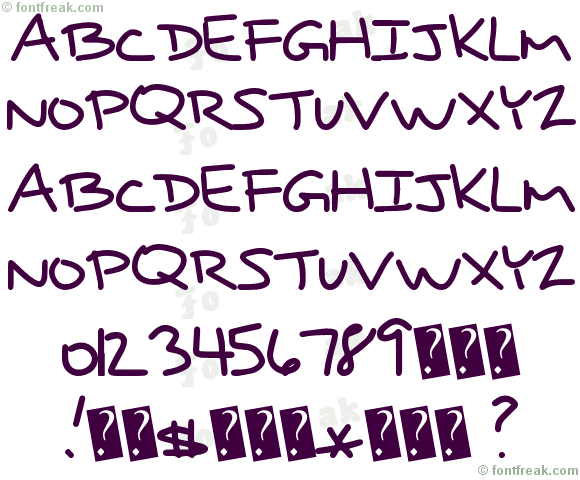
RightPrice
About RightPrice
RightPrice by Xerographer Fonts is a unique display typeface that captures attention with its playful, handwritten style. This font features medium stroke weights with a slight irregularity that evokes a handmade feel, making it perfect for projects that aim to convey personality and warmth. The letters are spaced generously, enhancing readability while allowing for a vibrant, open layout. The font lacks excessive decorative elements, focusing instead on its approachable and casual aesthetic.
RightPrice is particularly well-suited for a variety of creative applications. It excels in crafting eye-catching wedding invitations that resonate with a sense of charm and intimacy. Its whimsical characteristics also make it an ideal choice for designing restaurant menus, where it can help create a friendly and inviting atmosphere. For small business owners, RightPrice can be effectively used in promotional materials, such as flyers and social media graphics, to capture the essence of a brand that values creativity and approachability. Additionally, content creators looking to enhance their blog headers or video titles will find this font an appealing option that stands out without overwhelming the viewer.
What sets the RightPrice font apart is its ability to combine simplicity with a personal touch. Its friendly and relaxed design invites engagement, making it a versatile choice for various creative endeavors. For those searching for a unique typeface that can elevate their work, the RightPrice font free download offers an exciting opportunity to incorporate this delightful style into their projects.